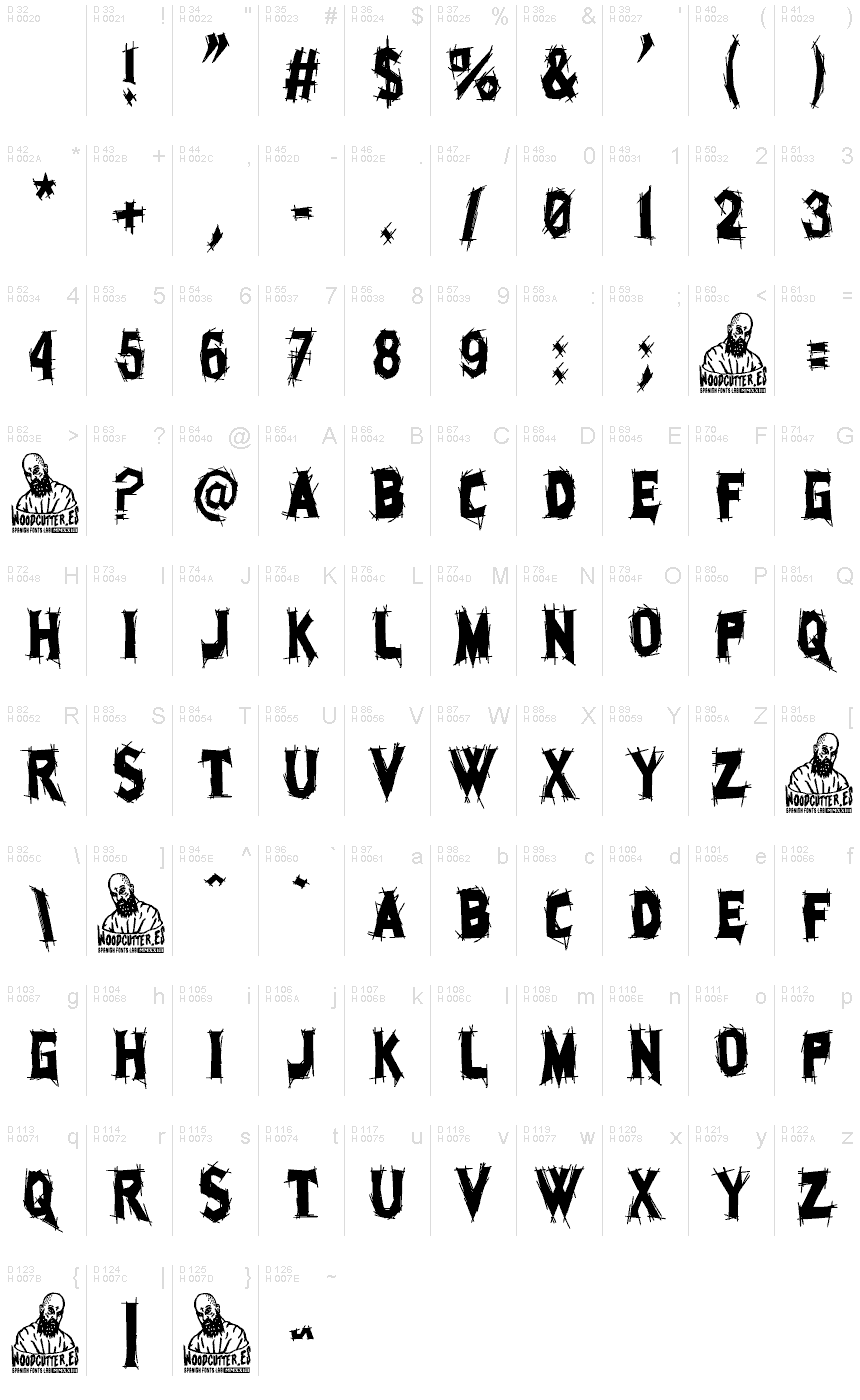
Eclectic Club
Eclectic Club font by Woodcutter is a chaotic, distressed display typeface. It has an angular design with rough edges, and as its name implies, the style is unorthodox. The different aspects combined give an edgy appearance to the font that is definitely unique and comparable to no other tool.
Such unconventional fonts offer designers one thing: differentiation! So go different with posters, book covers, T-shirt designs, skateboards typography stickers or logos. Download this free display font and try it for business cards of full branding projects!